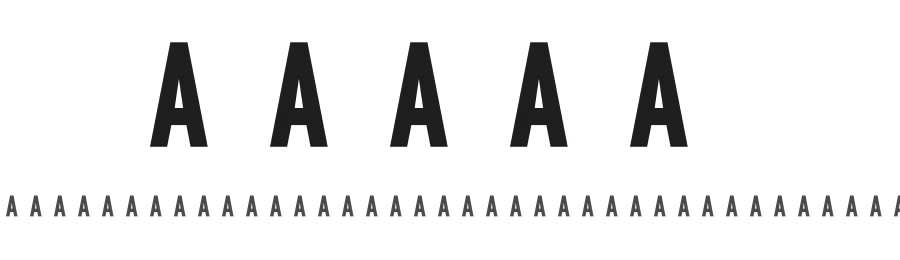
About Calculative Font
"Calculative" is a simple, practical and somehow elegant type which works well in large text bodies at any needed size.
Additional characters include accents (mainly as a result of my being Spanish and the frequent use we make of them)
"Calculative" is one of the first types I proudly created completely from scratch.